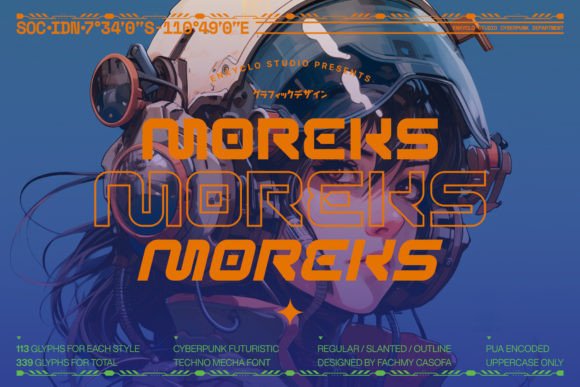
Moreks: A Futuristic Font for Bold Designs
In a world where visual communication is key, the right typography can make all the difference. Moreks is a futuristic display font that brings a unique energy to any project. Its sleek, modern design adds a touch of innovation and power, making it ideal for those who want to stand out in a competitive landscape.
Whether you're designing a website, creating a logo, or working on a magazine layout, Moreks offers a fresh perspective. It's not just about looking good—it's about communicating strength, creativity, and forward-thinking. This font is designed to elevate your work and give it a distinctive edge.
Why Moreks Matters for Your Projects
For professionals and creatives, the choice of typography is more than aesthetic—it's strategic. Moreks provides a bold, futuristic look that can transform how your message is perceived. In industries like marketing, branding, and digital design, standing out is essential. Moreks helps you do just that without sacrificing clarity or readability.
Imagine using Moreks for a headline on a billboard or a product title on a website. The font’s sharp lines and dynamic curves create a sense of movement and energy. This makes it perfect for projects that need to capture attention quickly and leave a lasting impression.
Practical Benefits of Using Moreks
One of the main advantages of Moreks is its versatility. It works well in a variety of formats, from print to digital media. For example, a designer working on a t-shirt or streetwear brand can use Moreks to create eye-catching text that reflects a modern, innovative identity. Similarly, a marketer launching a new product might use it for a campaign title that needs to feel cutting-edge and relevant.
Another benefit is the time it saves. Instead of searching for the perfect font that fits a futuristic theme, designers can rely on Moreks to deliver consistent, high-quality results. This efficiency is especially valuable for busy professionals who need to meet deadlines without compromising on style.
Who Can Benefit Most from Moreks?
Moreks is particularly useful for entrepreneurs, small business owners, and creatives who are building their brand. It helps establish a strong visual identity that resonates with audiences looking for something fresh and original. For instance, a startup aiming to position itself as a leader in tech might use Moreks for its website or social media profiles to convey innovation and confidence.
Freelancers and graphic designers also find value in Moreks. It adds a professional touch to their portfolios and client work, showing they understand the importance of typography in visual storytelling. Educators and publishers may use it for course materials or publications that require a modern, engaging look.
Real-World Applications of Moreks
Consider a scenario where a designer is working on a music album cover. Using Moreks for the title could instantly give the design a futuristic vibe that aligns with the artist's image. Similarly, a company launching a new app might use Moreks for its promotional materials to highlight the app's innovative features.
Moreks also shines in editorial work. Magazines and blogs that focus on technology, fashion, or lifestyle topics can use it to add a stylish, contemporary feel to their headlines and section titles. This not only enhances the visual appeal but also helps in guiding readers through the content more effectively.
Limitations and Considerations
While Moreks is a powerful tool, it's important to consider its suitability for different projects. Due to its bold and stylized nature, it may not be the best choice for body text or long paragraphs. However, when used appropriately—such as in headlines, logos, or banners—it delivers exceptional results.
Users should also evaluate whether Moreks aligns with their overall design strategy. If the goal is to create a clean, minimalist look, a more traditional font might be a better fit. But for projects that thrive on visual impact and a futuristic tone, Moreks is an excellent choice.
How to Get the Most Out of Moreks
To maximize the benefits of Moreks, start by experimenting with different sizes and placements. Test it in various contexts to see how it interacts with other design elements. For example, pairing it with a simple, sans-serif font for body text can create a balanced and visually appealing composition.
Additionally, take inspiration from the previews provided. These examples can help you visualize how Moreks might work in your specific project. Whether you're designing a logo, a website, or a promotional poster, the font’s unique characteristics can help you achieve a cohesive and impactful design.
Conclusion: Moreks for a Stronger Visual Identity